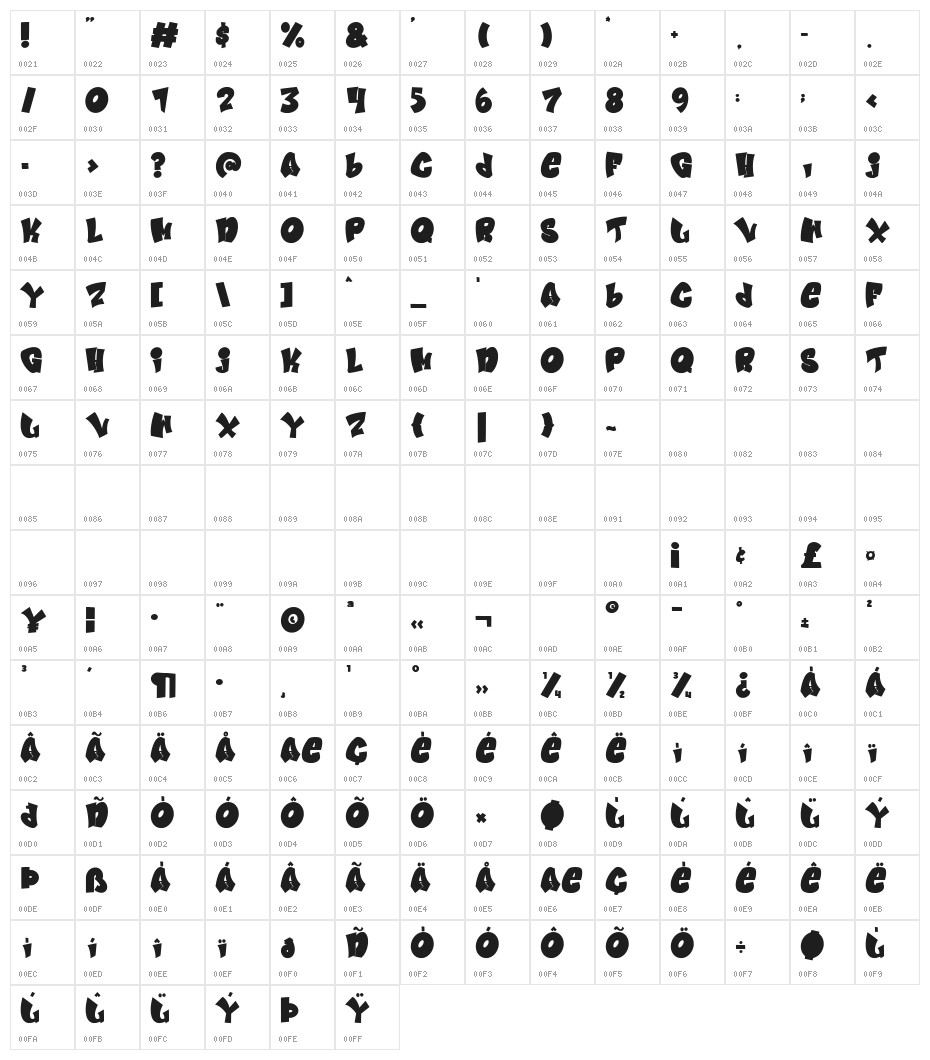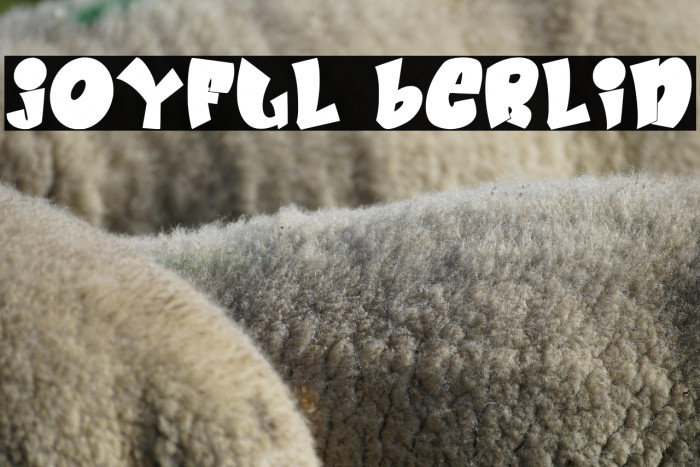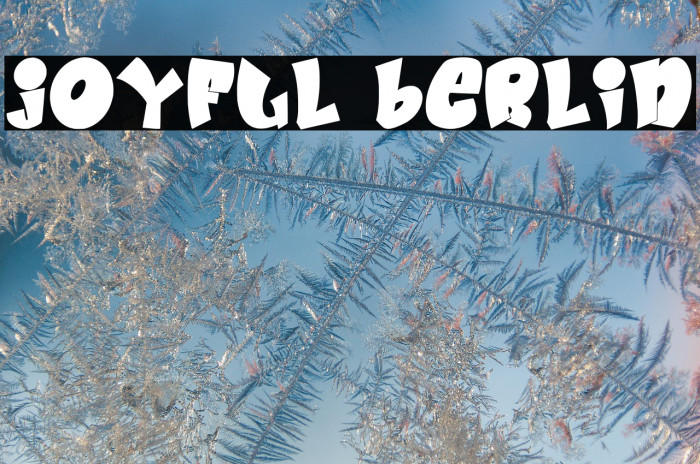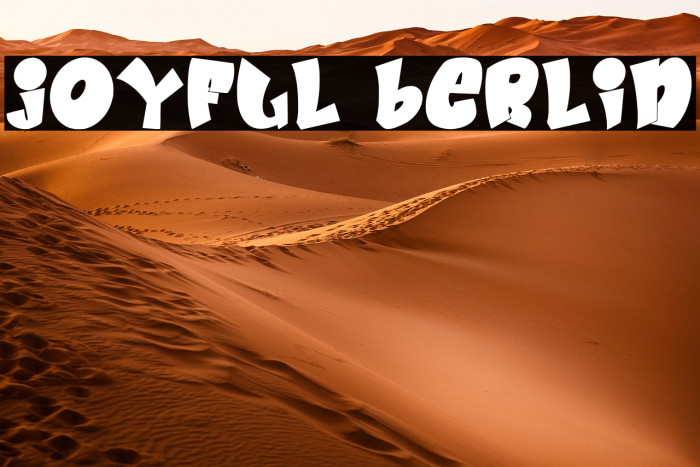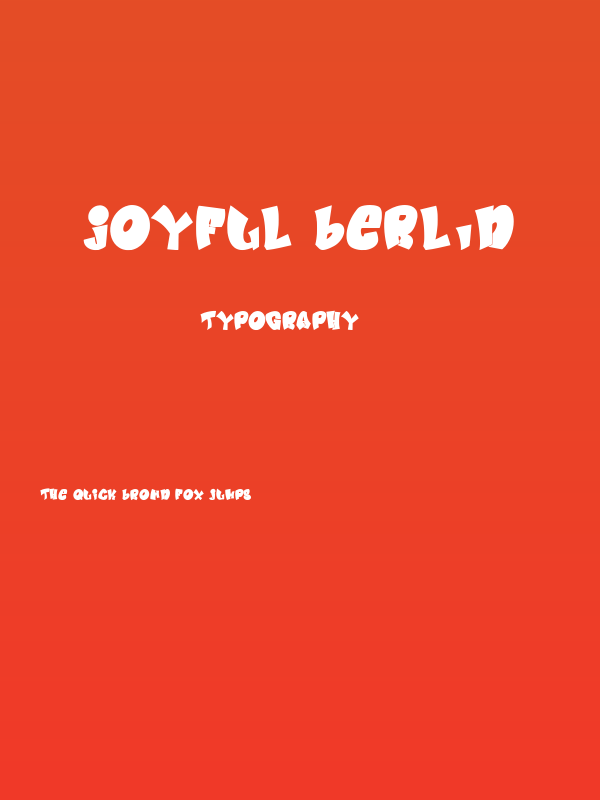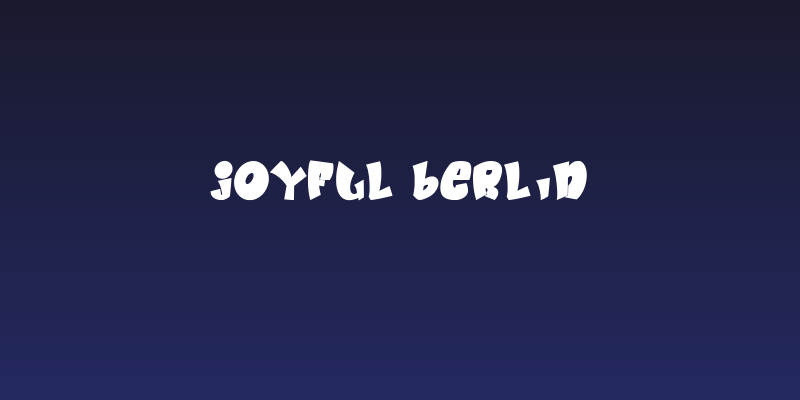
Joyful Berlin Font
Joyful Berlin Description
This playful and bold font features a whimsical and dynamic design, with each character exhibiting a unique and slightly irregular shape. The letters are thick and substantial, giving them a strong presence on the page. The overall style is reminiscent of hand-drawn or cartoon-like lettering, with a lively and energetic feel. The font's quirky and informal nature makes it ideal for projects that require a fun and engaging visual element. Its boldness ensures readability, while the varied character shapes add a touch of creativity and spontaneity.
| Overall Style | Playful, Cartoon-like |